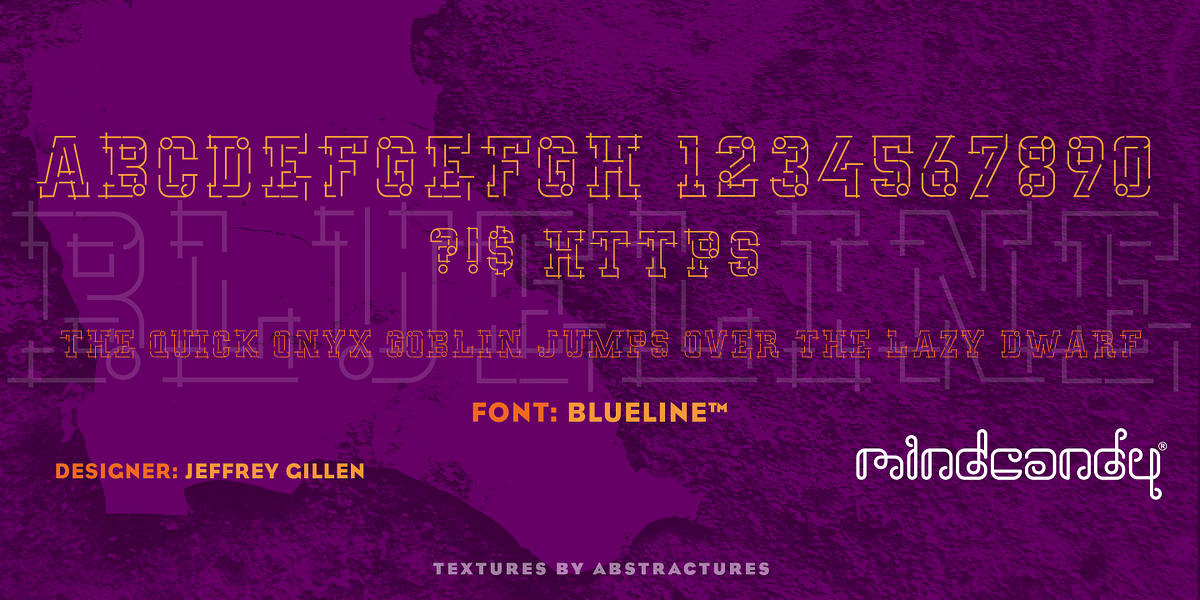
Blueline™
Blueline™ is a geometric display slab font designed by Jeff Gillen in 1998. Its unique aesthetic draws inspiration from the pencil-drawn architectural schematics of a pre-CAD era. The font features a combination of straight and curved lines, along with circles, evoking the essence of early architectural creation and prototyping.